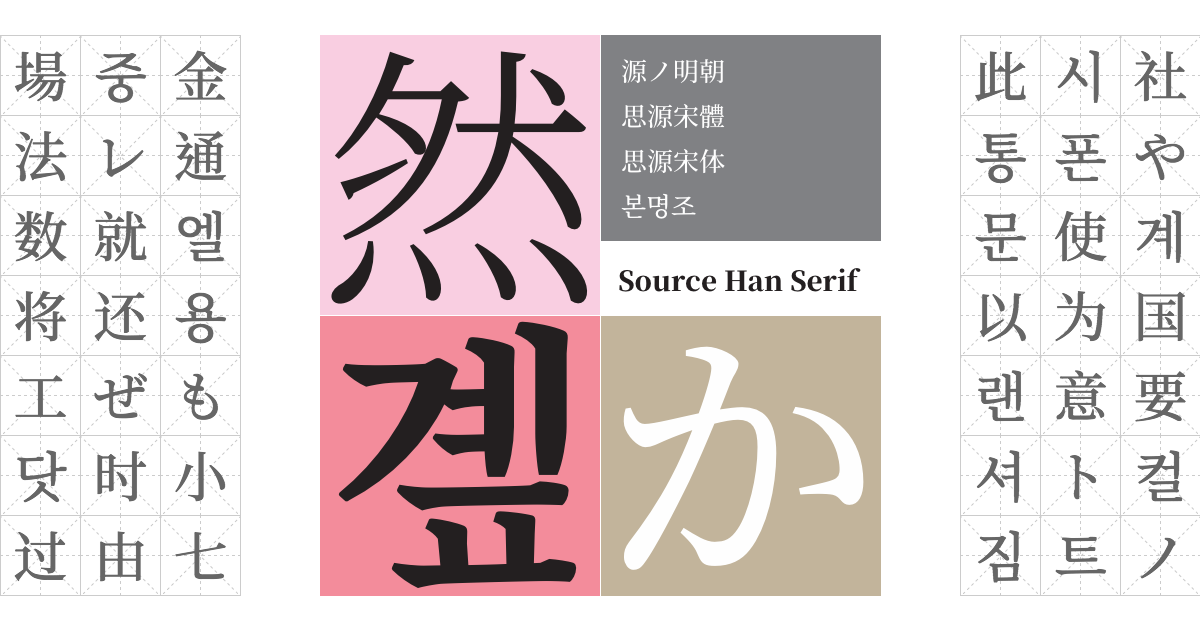
Adobe partners with Google to launch new open-source pan-CJK font
A few years back, Adobe and Google teamed up to launch a new open-source font for Chinese, Japanese and Korean (CJK) languages. Today, the two companies are expanding on this project with the launch of a serif CJK font. Adobe calls this new font Source Han Serif, while Google calls it Noto Serif CJK.
Just like with the first project, Adobe font designer Ryoko Nishizuka worked on the overall design of the font and the company then worked with a number of local foundries in China, Japan and Korea to finish all of the 65,535 glyphs that make up the full font (which also includes Latin, Cyrillic and Greek glyphs based on Source Serif). All of those glyphs are available in seven weights, so we’re talking about more than 450,000 glyphs here — a huge number compared to your average Latin font.
“For a region like Asia, where the typefaces are so complex, having something that can be used freely is a really big deal,” says Adobe senior manager Dan Rhatigan. “Source Han Sans was the first major collaboration between Adobe and Google to make a pan-Asian font available to the world. Source Han Serif brings the other note to the palate for designers.”
Like the previous project, Source Han Serif is optimized for the screen — and Google’s motivation for supporting this project was surely at least partly driven by the need for better CJK fonts on Android.